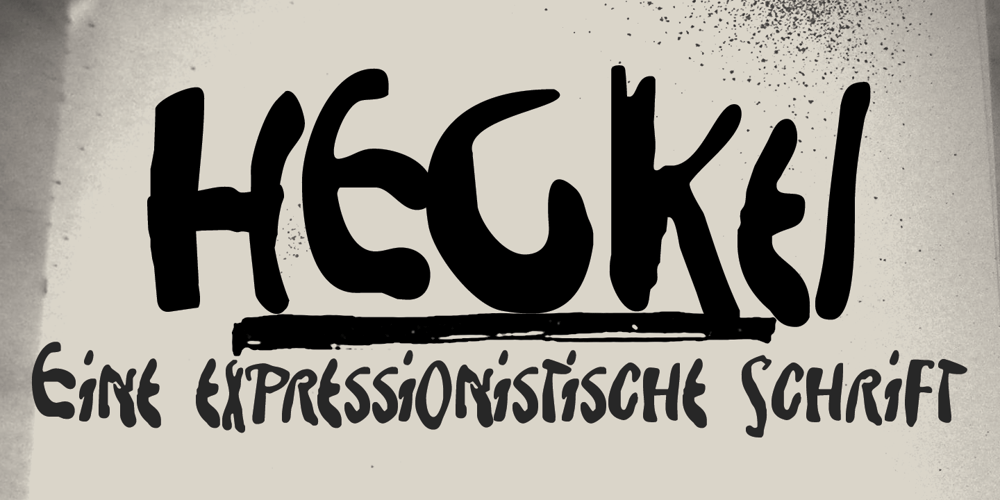
Heckel Font Family was designed by David Kerkhoff and published by Hanoded. Heckel contains 1 styles and family package options. Erich Heckel (1883 – 1970) was a German painter and printmaker. He was a founding member of Die Brücke (The Bridge), a group of German expressionists. Heckel font somewhat resembles the loose (and messy) handwriting Erich Heckel used in some of his drafts.